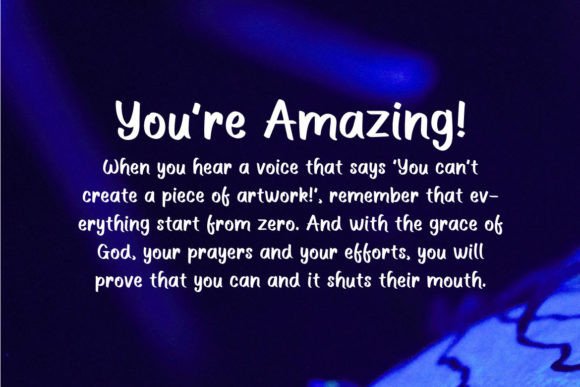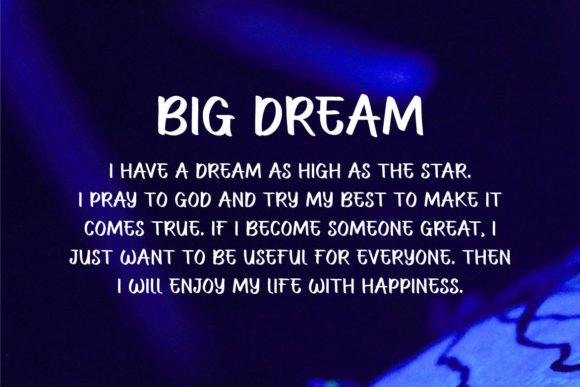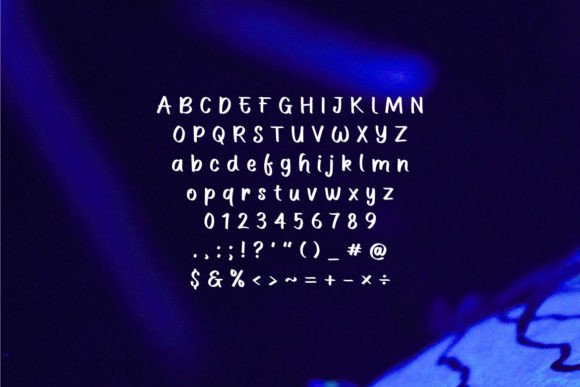
The Perfect Touch of Handwritten Charm
Remember that moment when you stumbled upon the perfect font for your next creative project? The one that elevates your design from ordinary to extraordinary? For designers, finding that special font can be a game-changer. And, we’re excited to introduce you to Alentha Font, a modern and cool handwritten font that’s about to become your new go-to choice.
Alentha Font is more than just a stylish addition to your design arsenal. Its natural and versatile look makes it suitable for a wide range of applications, from logos and branding to social media graphics and editorial content. Whether you’re a seasoned pro or a design newbie, Alentha Font is a valuable asset that will help you add a personal touch to your work.
Alentha Font Key Features
• Font Family: Alentha is a unique, handwritten script font designed for various creative applications.
• Character Set: The font includes a wide range of characters, including uppercase and lowercase letters, numbers, and punctuation marks.
• Unique Characteristics: Alentha features a distinctive, handwritten style with subtle variations in letterforms, giving it a personal and creative touch.
Alentha Font Review
Overall, I found the Alentha font to be quite charming, with a certain whimsy that can be really appealing for the right project. ✨
One of the things that I think Alentha does well is its ability to create a sense of elegance without being too over-the-top. ✨ It’s a great choice for projects that need a touch of sophistication, but still want to remain approachable.
Another strength of Alentha is its versatility. ✨ It can be used for a wide range of applications, from headings to body text, and still look great.
While Alentha has its strengths, it’s not without its limitations. ⚠️
One thing that I found a bit tricky to work with was the font’s irregularities in terms of letter spacing and word flow. ⚠️ This can make it a bit more challenging to use, especially for longer blocks of text.
Additionally, the font may not be the best choice for projects that require a lot of fine-tuned control over the typography. ⚠️ The irregularities I mentioned earlier can make it difficult to achieve a perfectly consistent look.
Overall, I think the Alentha font is a solid choice for projects that need a touch of elegance and sophistication. While it may not be perfect for every situation, it’s definitely worth considering for the right project.
• Perfect for: Elegant, sophisticated projects
• Not perfect for: Projects that require fine-tuned control over typography
• Best used for: Headings, body text, and other applications where elegance is key
For optimal results, use Alentha Font for headings and titles. It’s also suitable for body text, especially for formal or professional documents.
Alentha Font is commonly used in:
– Corporate branding and identity
– Formal documents (e.g., reports, certificates, etc.)
– Creative projects (e.g., graphics, posters, etc.)
Are there any specific font metrics or spacing considerations for Alentha?
Alentha has a slightly condensed width and a moderate x-height, which can affect the spacing between characters. It’s recommended to adjust the tracking and kerning settings according to your design requirements to achieve the best results.